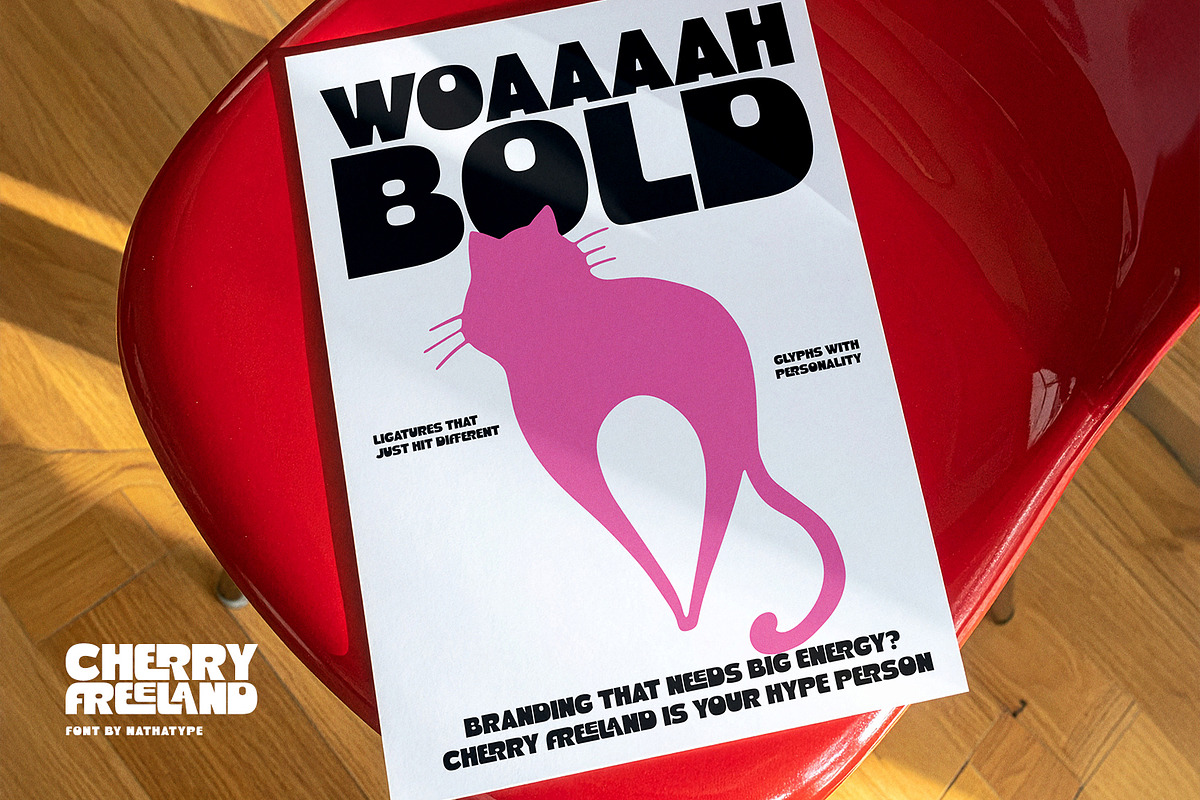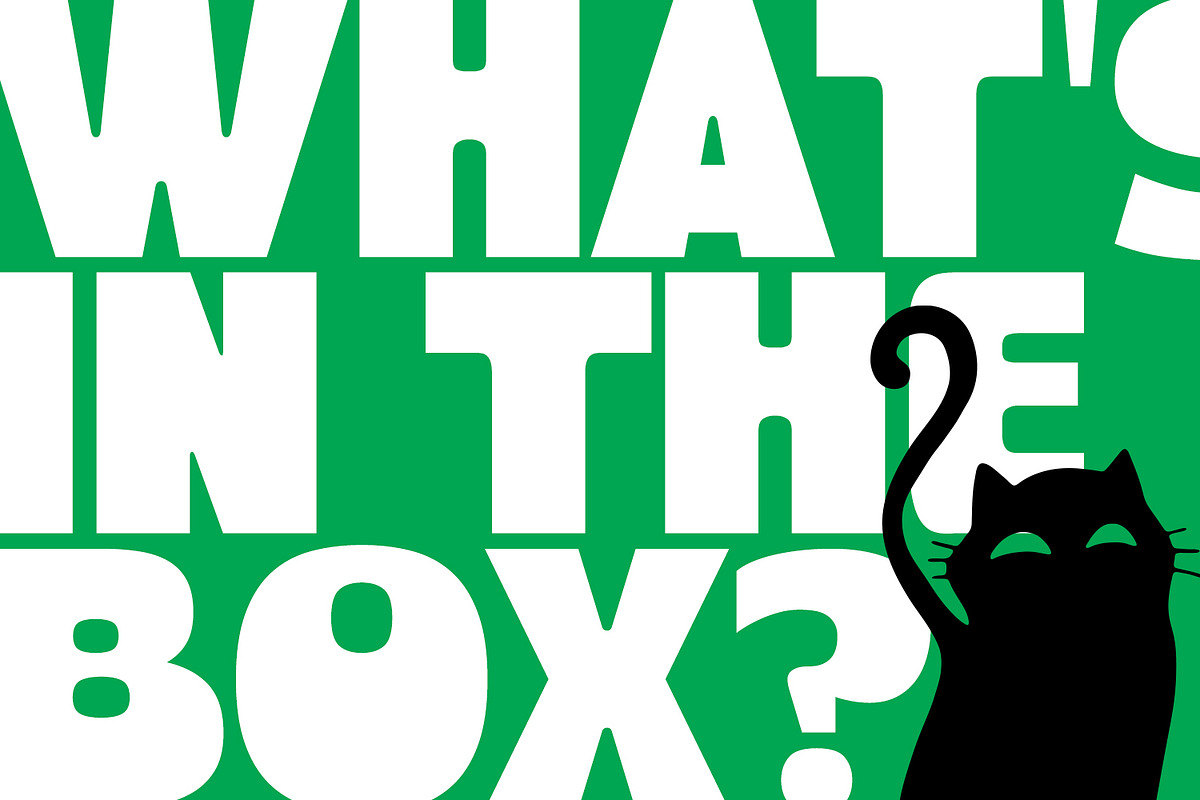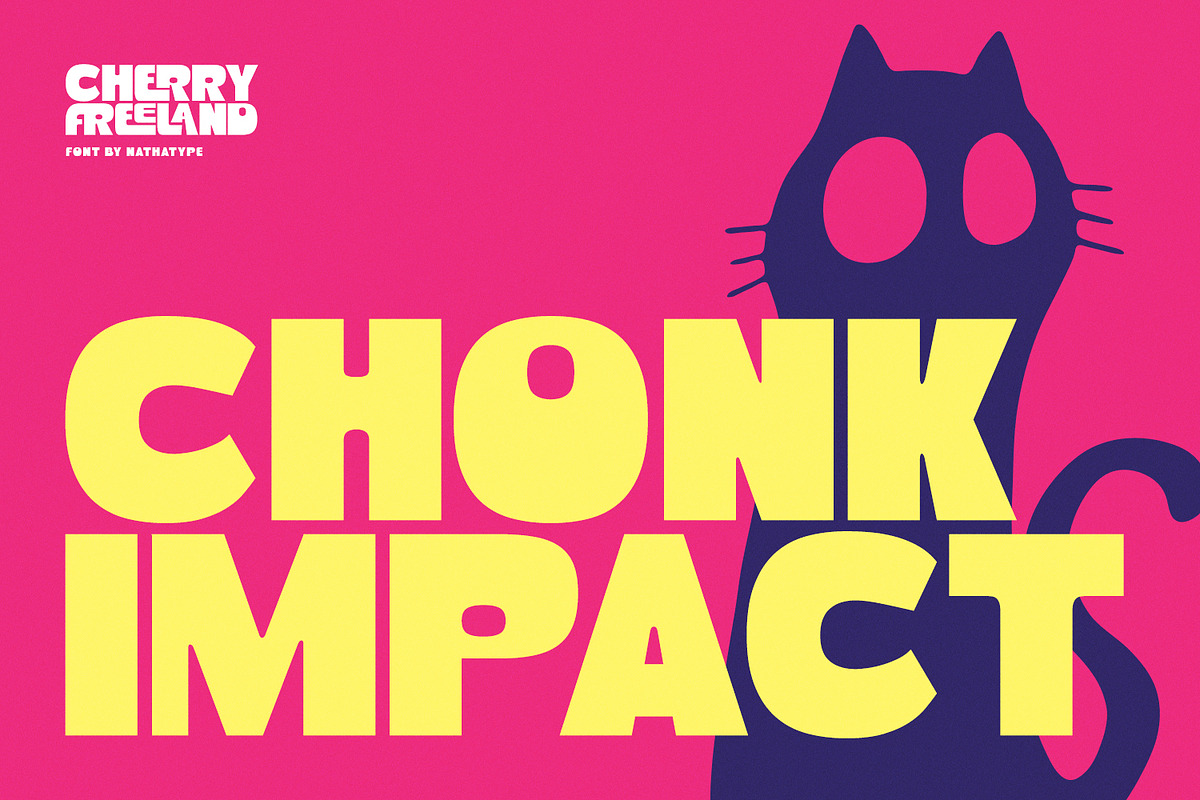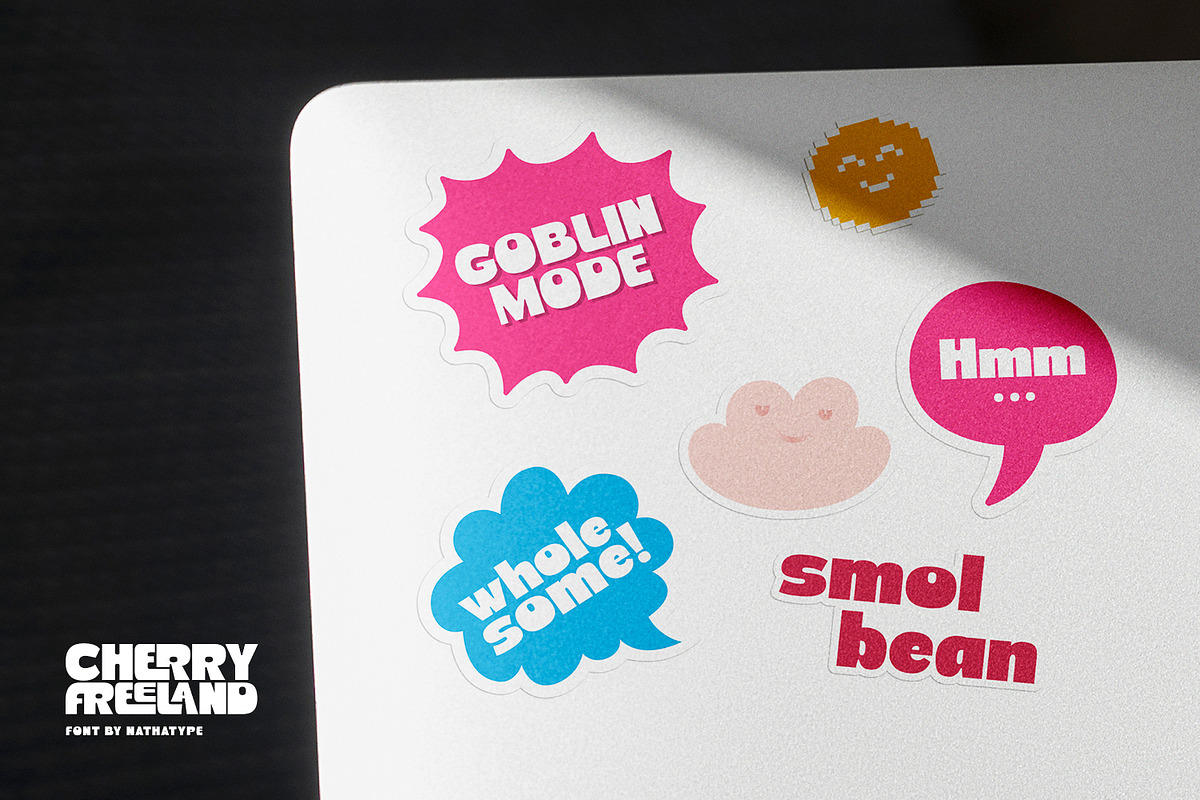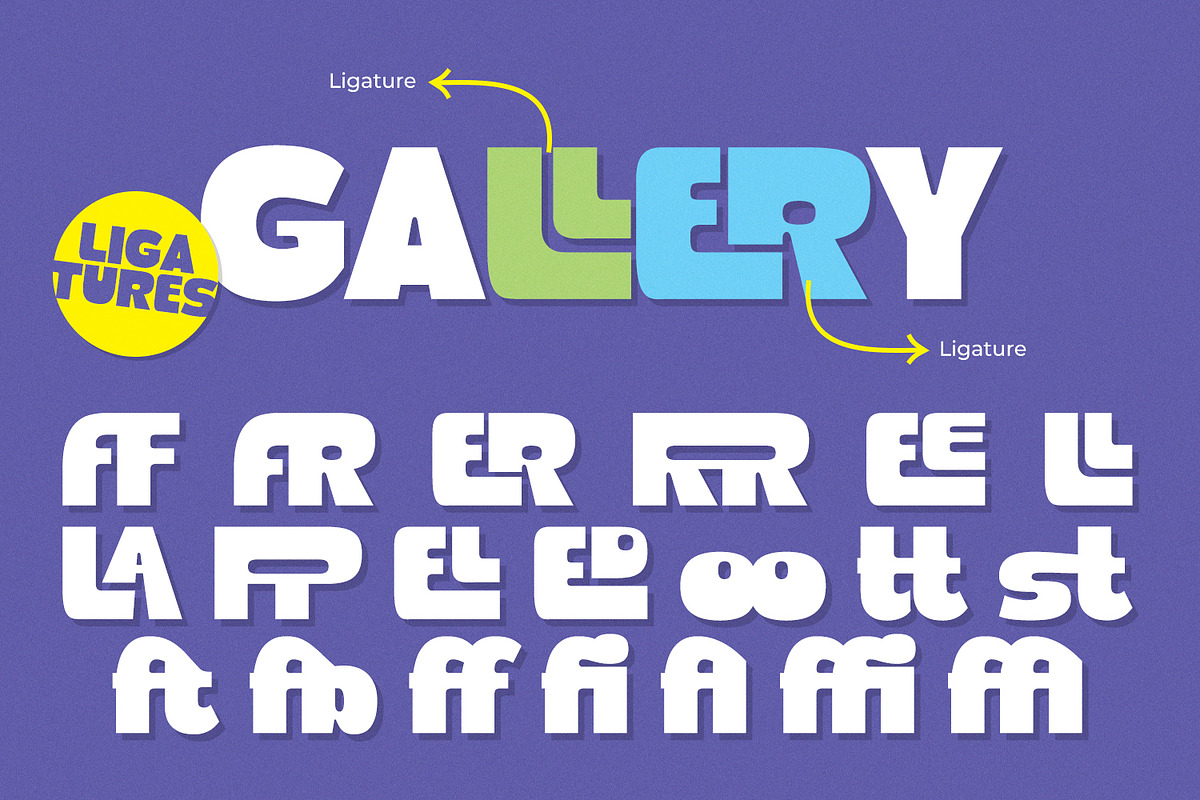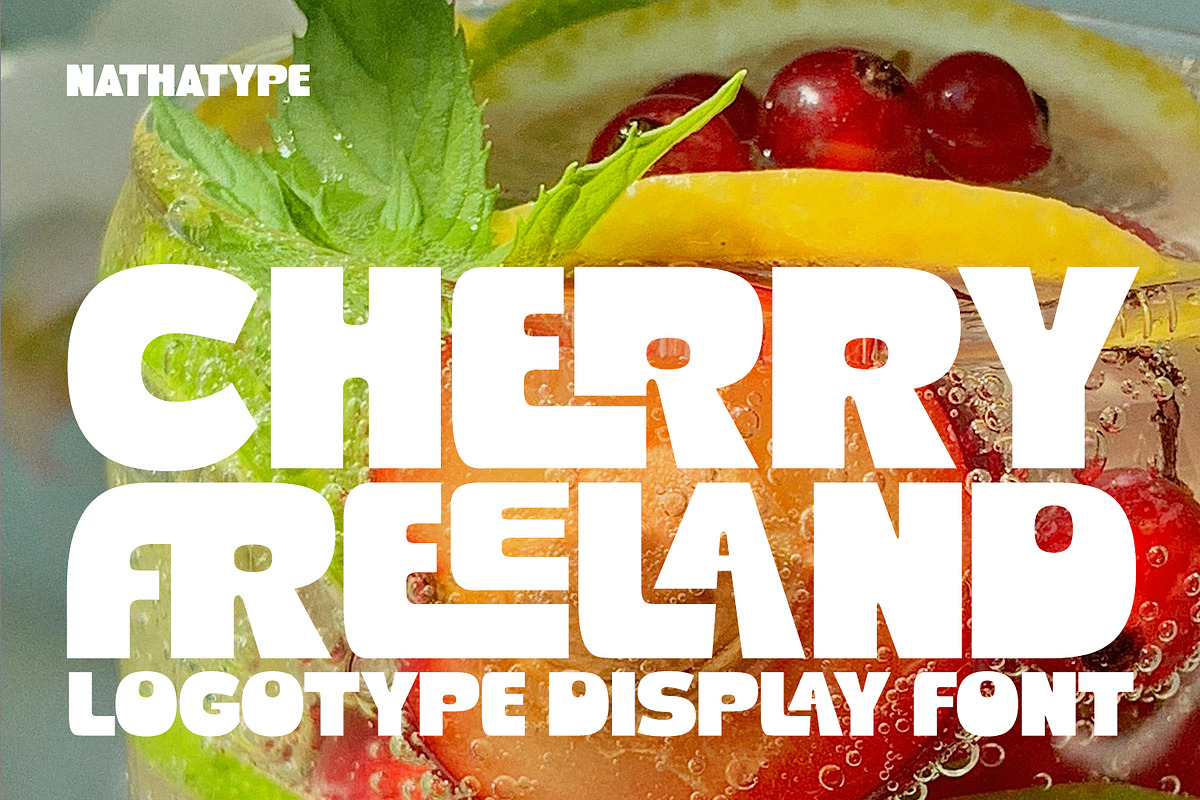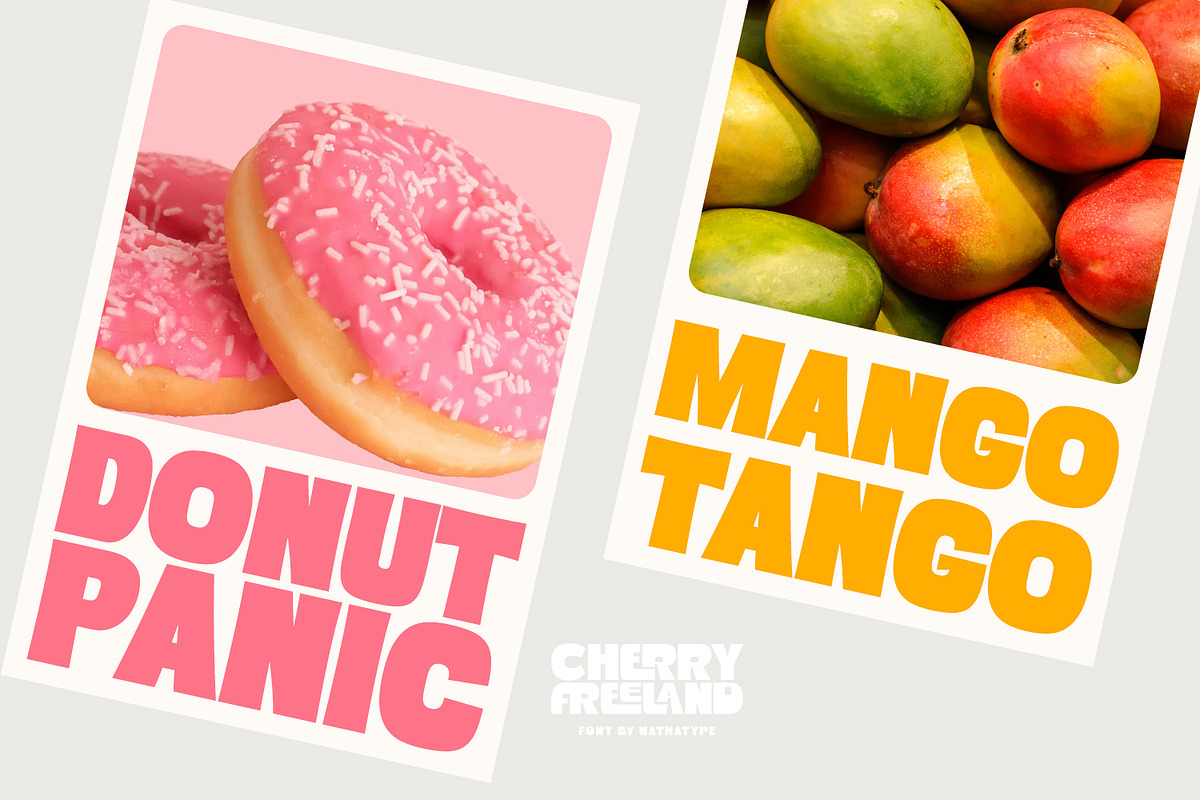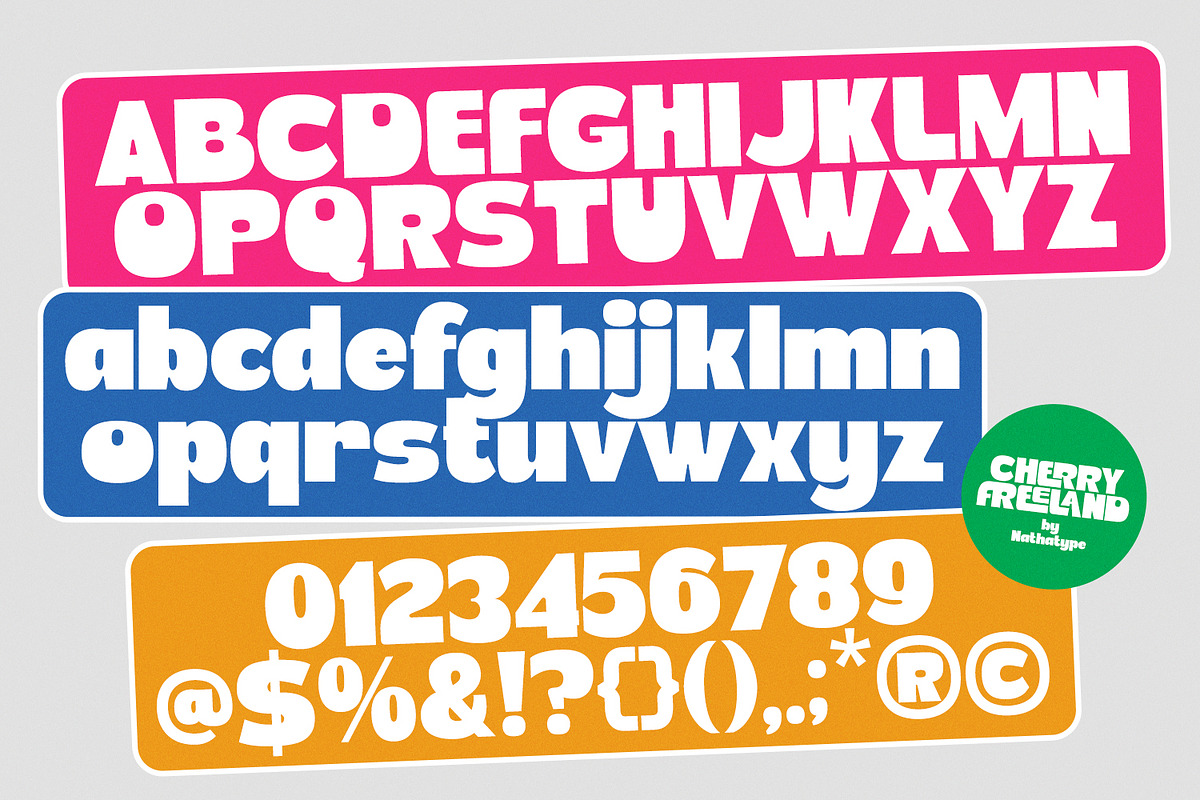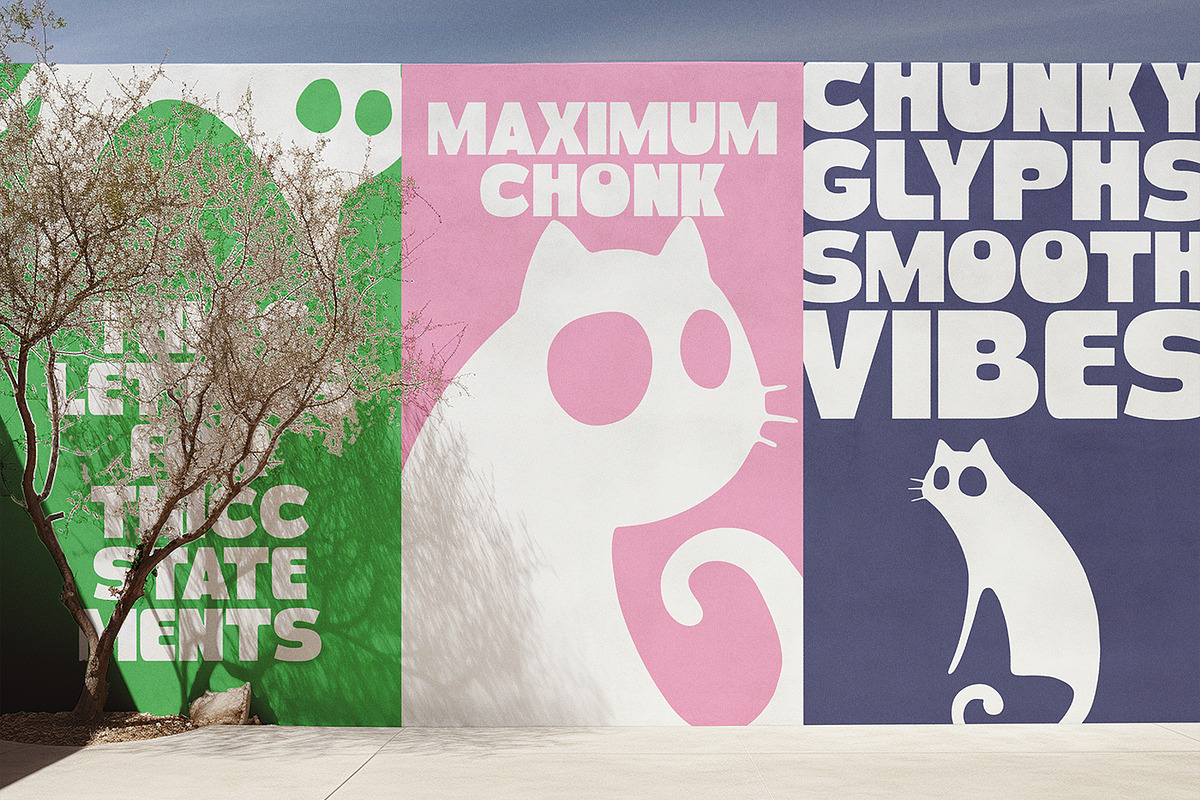
Cherry Freeland
Cherry Freeland is a bold and eye-catching logotype display font. Designed to stand out effortlessly, this font blends playful personality with bold confidence, making it perfect for brands that want to communicate warmth, approachability, and modern charm. The heavy weight gives Cherry Freeland a striking presence, while its rounded edges soften the look, creating a balanced combination of strength and friendliness. In addition, enjoy the features here.
Cherry Freeland fits in logos, quotes, branding, posters, and many more designs. Find out more ways to use this font by taking a look at the font preview.